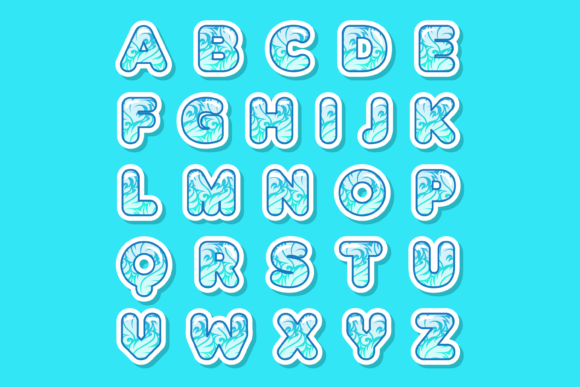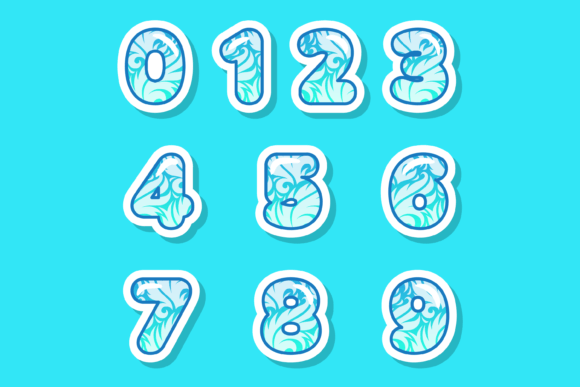
Introduction to Plume Font
Have you ever been working on a creative project, pouring your heart and soul into it, only to feel like something is missing that special touch? For designers and crafters alike, finding the right design resource can make all the difference. That’s where the Plume Font comes in – an incredibly cool and fun color font that adds a lovely touch to any creation.
Whether you’re looking to create custom designs, DIY crafts, or just need a unique element to elevate your project, the Plume Font is an amazing choice. Its high-quality, colorful design is perfect for adding a pop of personality to your work. And the best part? It’s compatible with popular design software like PhotoShop, Illustrator, Silhouette, and Inkscape, making it easy to incorporate into your creative project.
With the Plume Font, you’ll have access to a versatile design element that can be used in a variety of ways, from digital designs to physical crafts. And with its transparent background, you can easily layer it over other elements to create a seamless look. So why settle for a generic font when you can add a unique touch to your work with the Plume Font?
Key Features of Plume Font
- High-quality font with a beautiful, elegant design perfect for creative projects.
- Features a transparent background, allowing for seamless integration into any design or creative project.
- Comes in a range of sizes, from small to large, making it suitable for various design applications, including logos, titles, and body text.
- Resolution is scalable, ensuring that the font remains crisp and clear even at high resolutions.
- Designed to be a versatile design resource, the Plume Font is suitable for a wide range of creative projects, from wedding invitations to magazine covers.
Honest Review: Plume Font
I recently stumbled upon the Plume Font, and I must say, it’s a great addition to any designer’s toolkit. This free download offers a unique, elegant style that’s perfect for creative projects that require a touch of sophistication.
What works well about the Plume Font is its versatility. It’s available in a range of weights, from light to bold, making it easy to find the perfect fit for your design. The font also features a transparent background, which allows for seamless integration with any background image or color.
- ✨ Unique and elegant design style
- ✨ Available in multiple weights
- ✨ High-quality design resource
However, I did encounter a few limitations. The font is only available in a limited range of languages, which may be a concern for designers working on multilingual projects. Additionally, the font’s license restrictions may limit its use in commercial projects.
Overall, I’m impressed with the Plume Font. It’s a great design resource that’s perfect for creative projects that require a touch of elegance. While it may have some limitations, it’s definitely worth considering for any designer looking for a high-quality font.
The Plume Font is commonly used in various design projects, including brochures, business cards, and social media graphics. It is also used in digital design projects, such as website headers and footers.